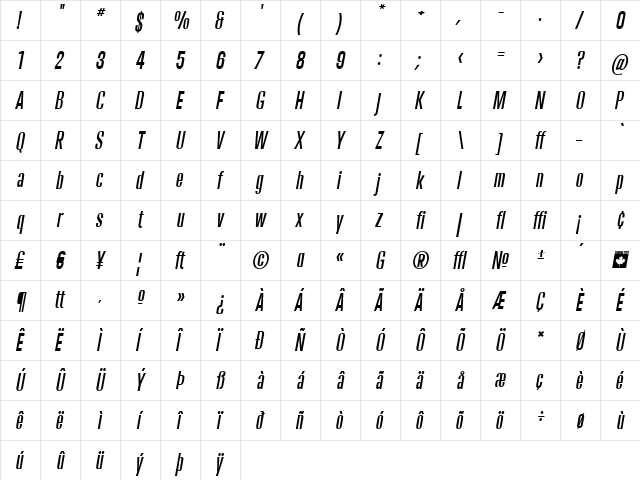
Trump Gothic West Medium Italic
Design Context for Trump Gothic West Medium Typeface
Trump Gothic West Medium has the quiet confidence of well-executed sans-serif typography: versatile, unobtrusive, and dependable at any size. The slanted form adds forward momentum and visual energy.
Font Pairing: Works well alongside a characterful serif or display font that can carry the expressive load while Trump Gothic West Medium handles the functional copy.